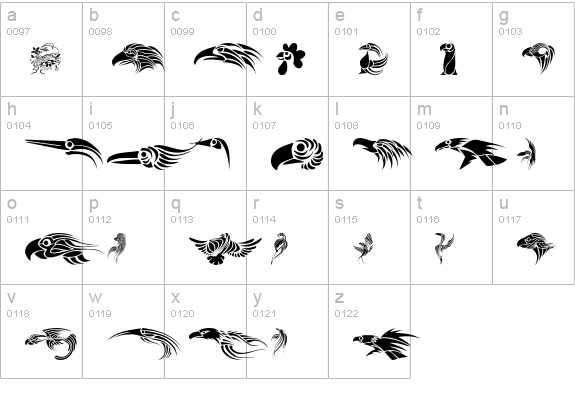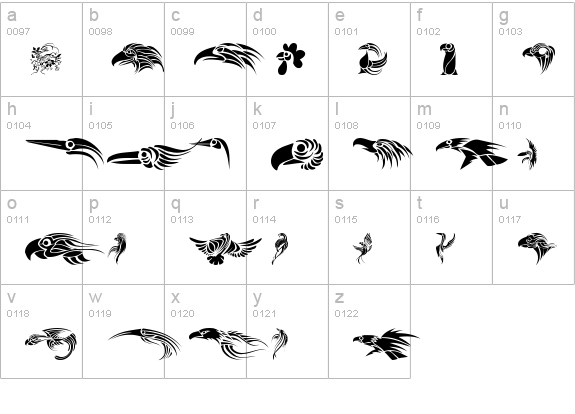
Birdies Font Details
Introducing Birdies font, a whimsical and playful typeface that will add a touch of charm to any design project. With its unique hand-drawn style and quirky details, Birdies font is perfect for creating eye-catching headers, invitations, posters, and more. Each letter is carefully crafted to evoke a sense of creativity and fun, making it an ideal choice for projects that require a cheerful and lighthearted aesthetic. What's even better is that Birdies font is completely free to download at FontsMarket.com! This means you can easily access this delightful font without any cost, allowing you to unleash your creativity without breaking the bank. Don't miss out on this fantastic opportunity to add a touch of whimsy to your designs with Birdies font. Download it today and let your imagination take flight!